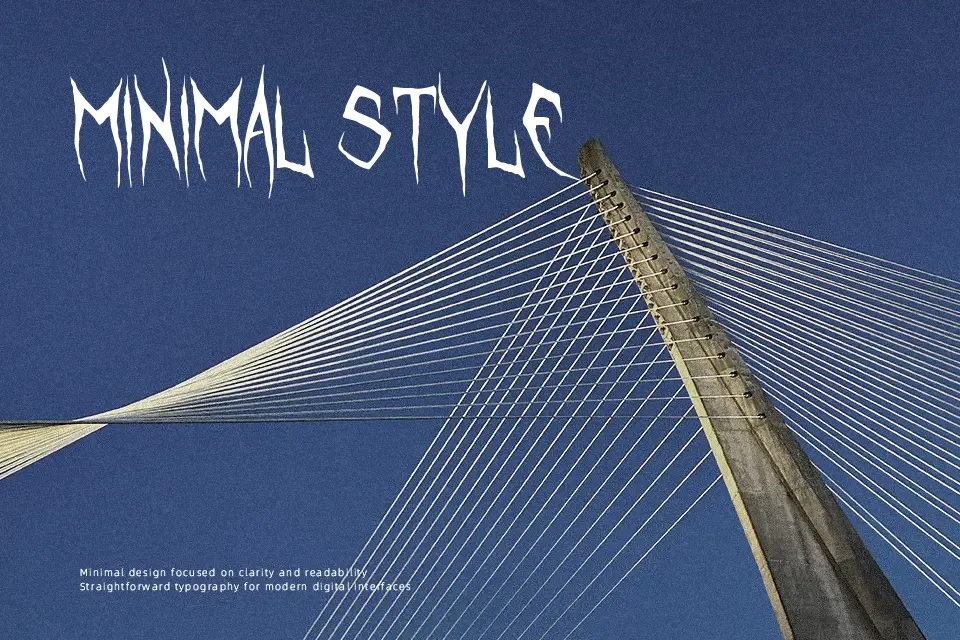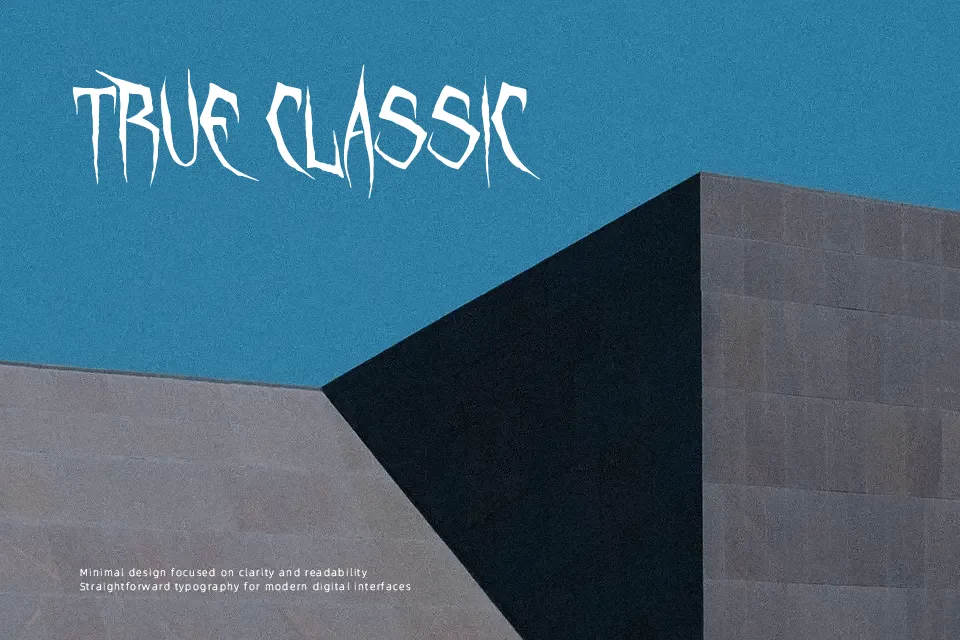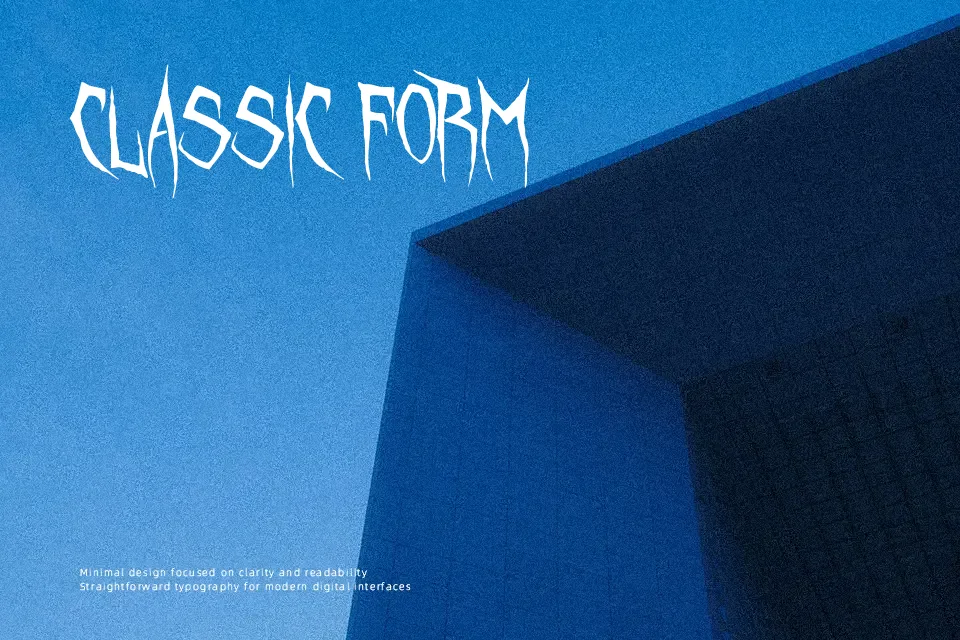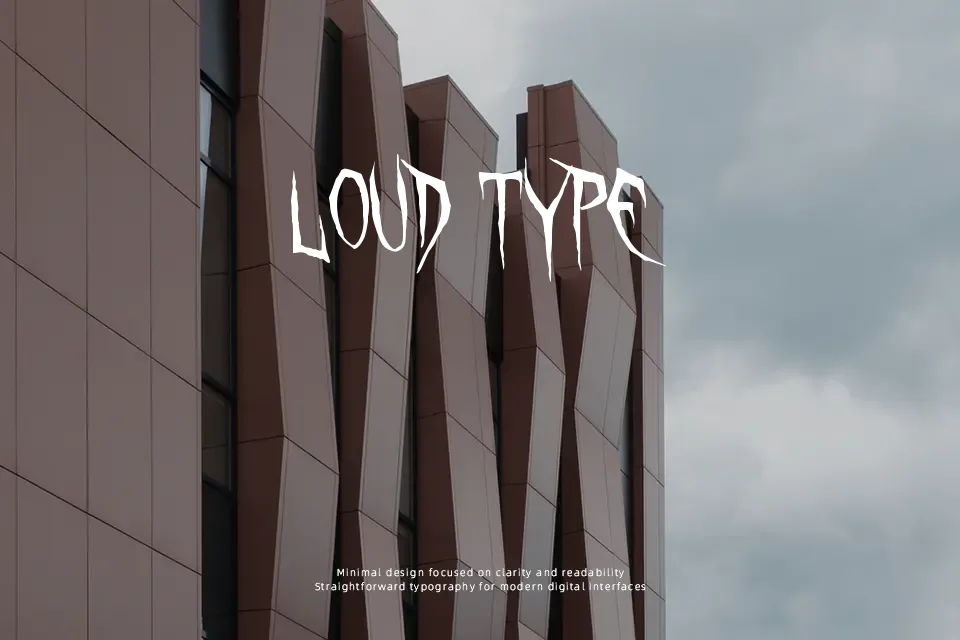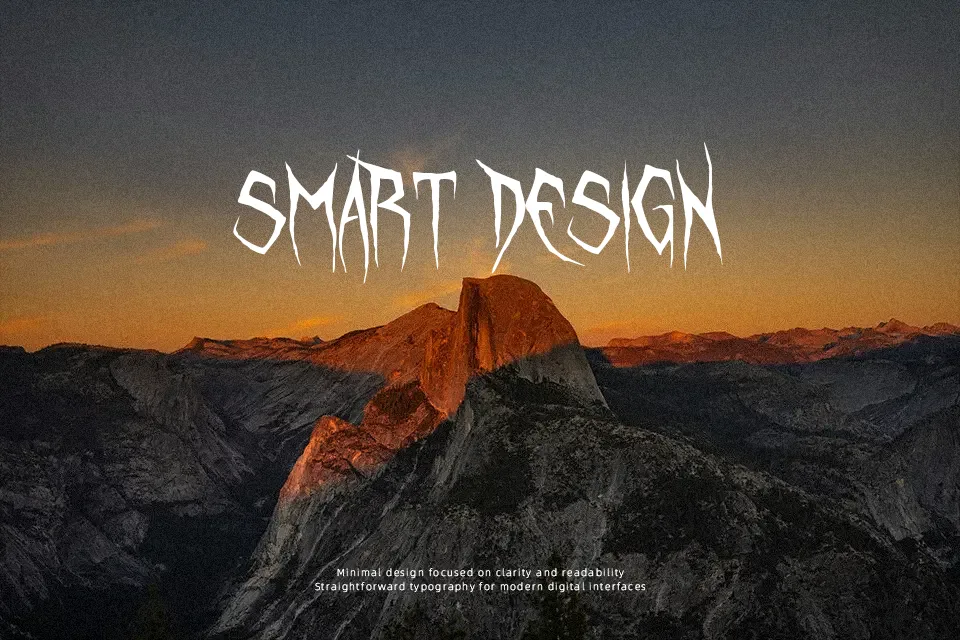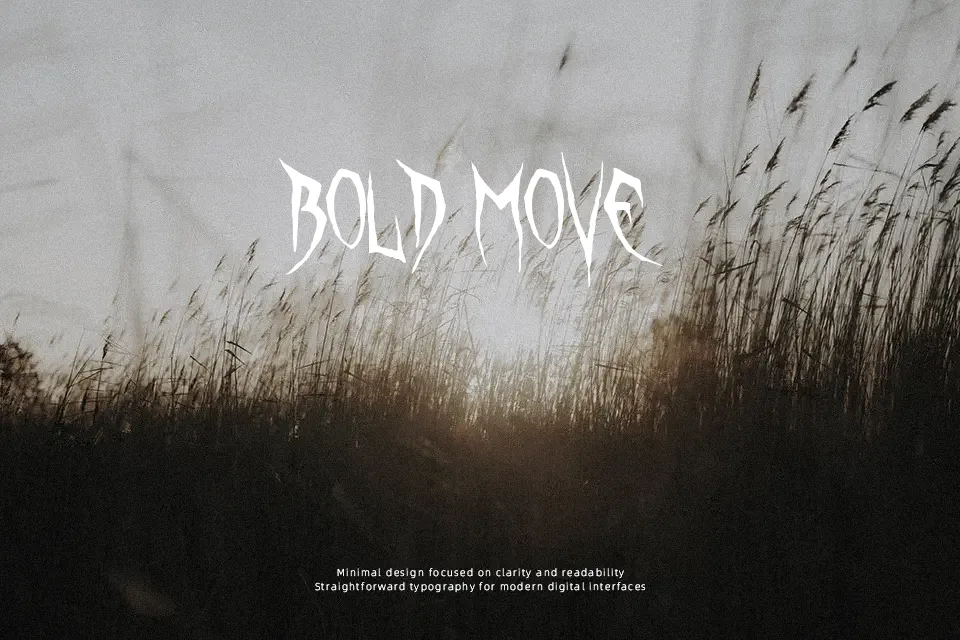
Unquiet Spirits Font
Designed by Sinister Fonts
Unquiet Spirits Font delivers an uneasy visual impact through jagged, hand-drawn letterforms featuring scratchy contours, uneven baseline alignment, and slender, high-contrast stems. Irregular character widths and erratic spacing create an organic, nervous rhythm across display compositions, making the typeface well suited for thriller book covers and Halloween event posters. Sharp stroke terminals and spindly joints maintain immediate tension at large display scales, though the fractured silhouettes degrade rapidly when rendered in small text blocks. The letterforms become difficult to decipher in dense paragraphs, making the design much more effective when reserved strictly for short headlines.
Best For: horror movie posters,haunted attraction flyers,spooky escape room branding,halloween apparel graphics
Not Ideal For: continuous body text,technical manual documentation,corporate financial spreadsheets,small mobile user interface labels
Perfect for film, halloween, and headline, with a dark and decorative style.